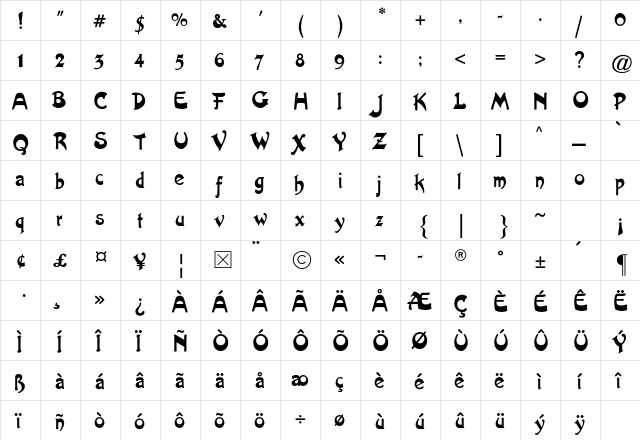
Artistik Std Regular
Design Context for Artistik Std Typeface
Artistik Std is a composed and adaptable typeface that performs quietly and consistently across a wide range of design contexts.